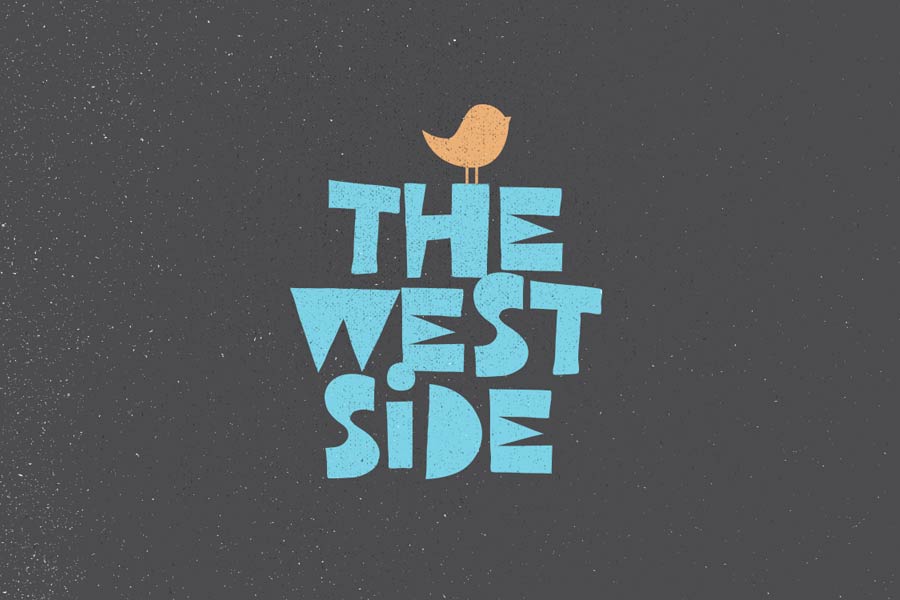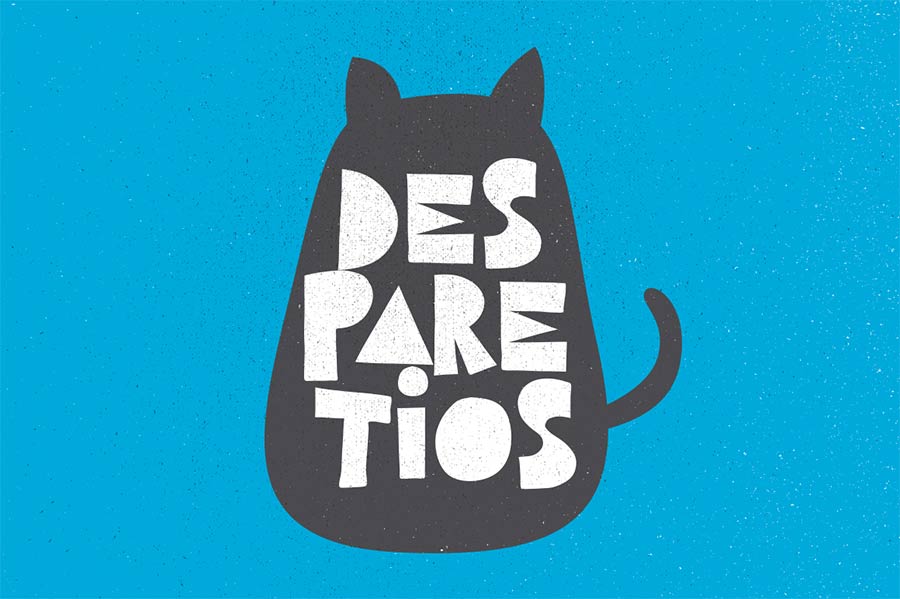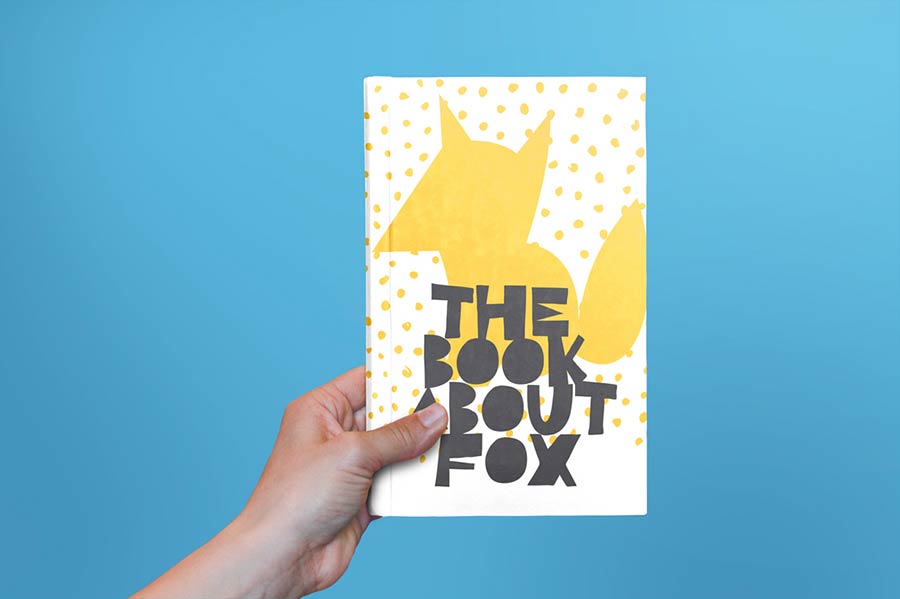
West Side is a free font inspired by the handmade poster designs and illustrations from the 1980s. This block-styled handcrafted typeface and be used to give an instant retro feeling to your design. West Side is free for all including personal and commercial projects, and it’s greatly fit for t-shirt, greeting cards, labels and poster designs!